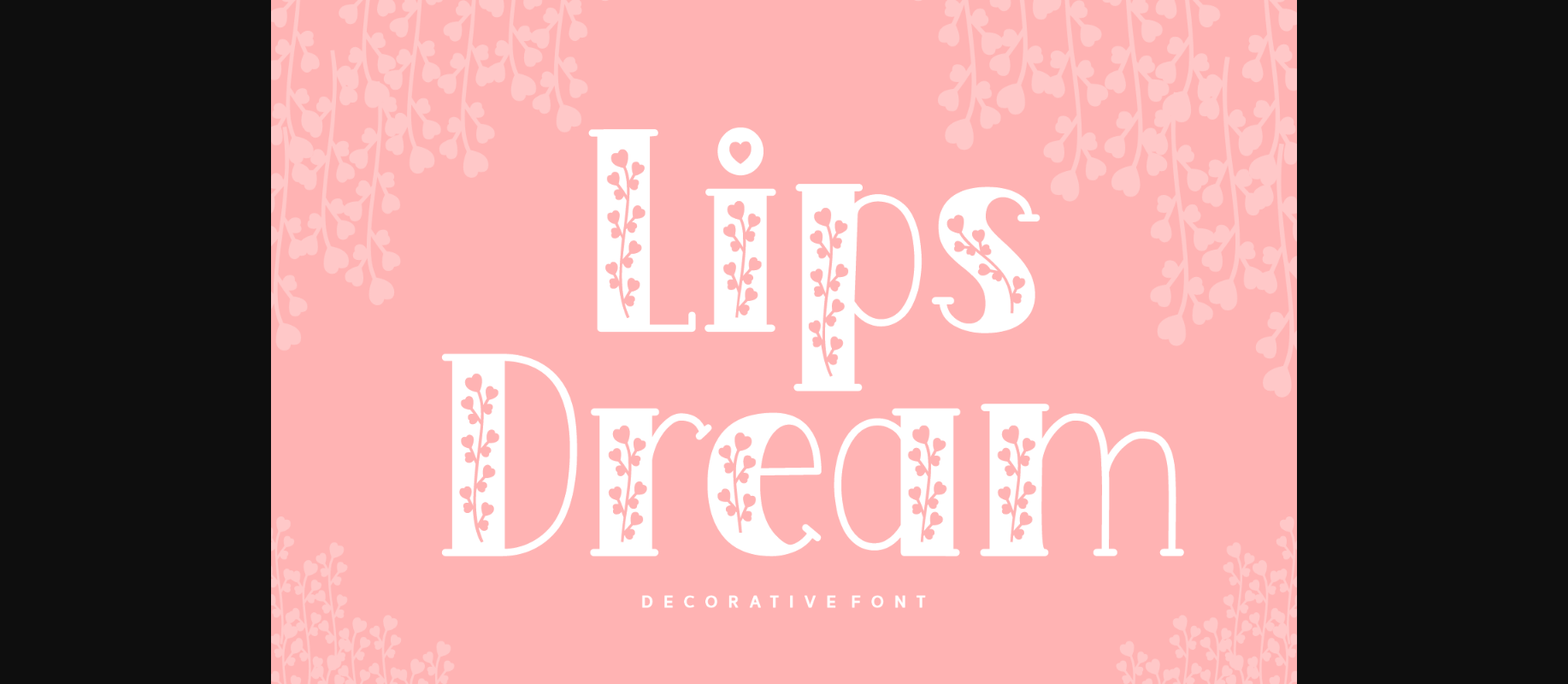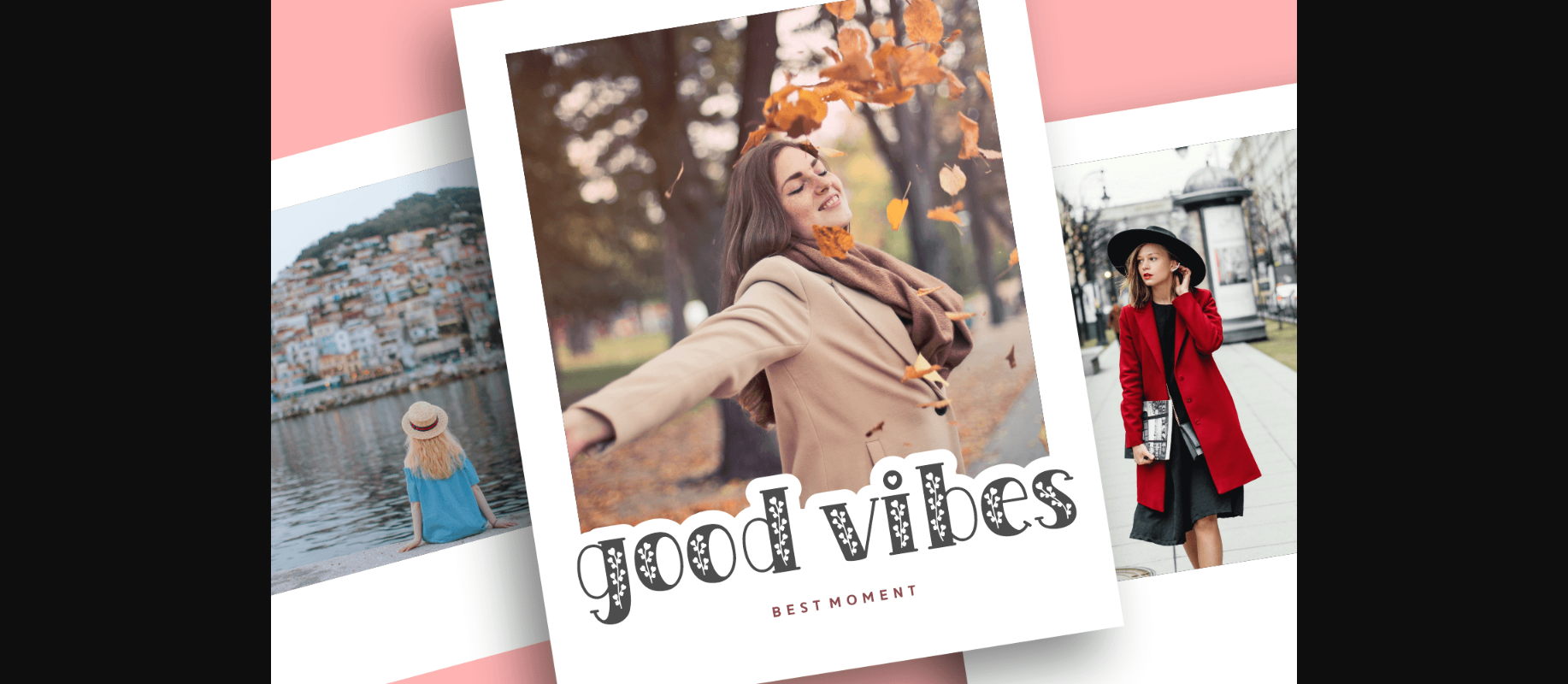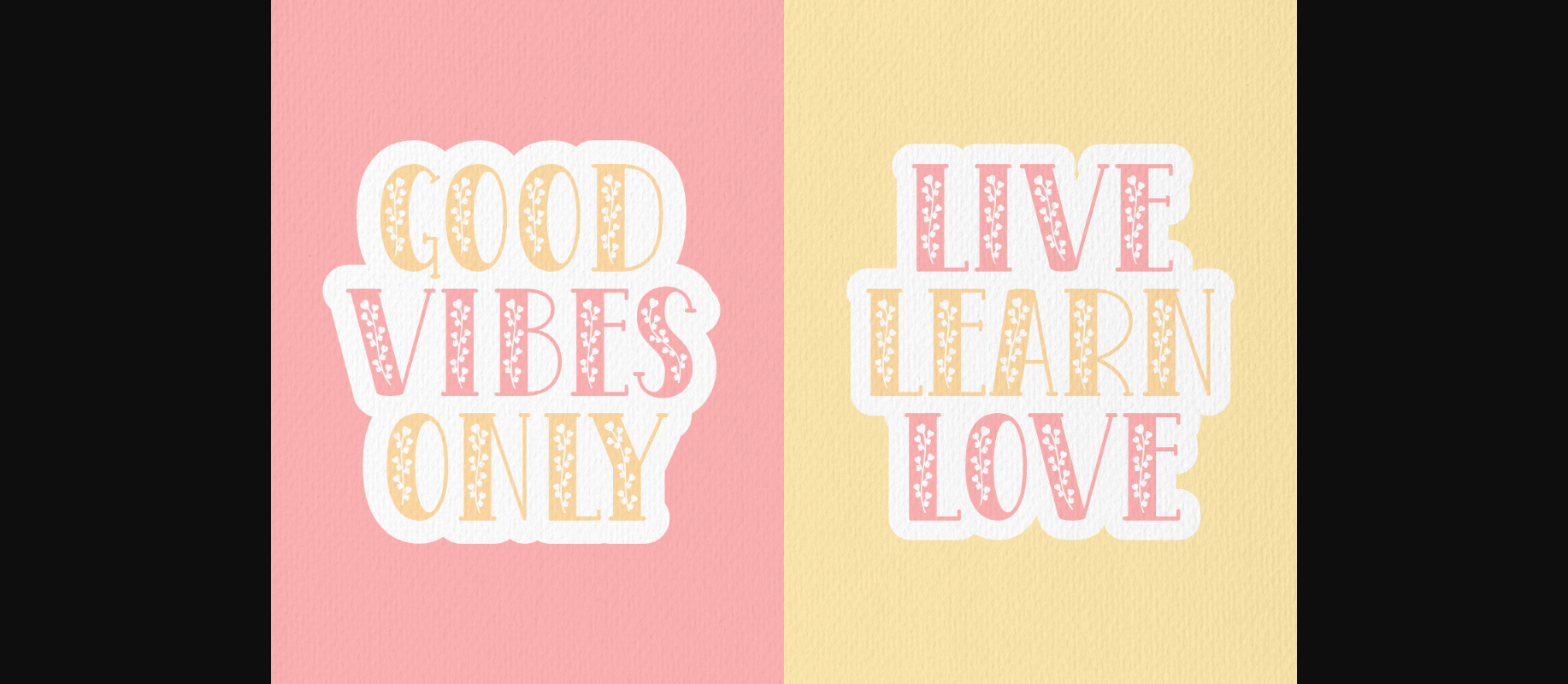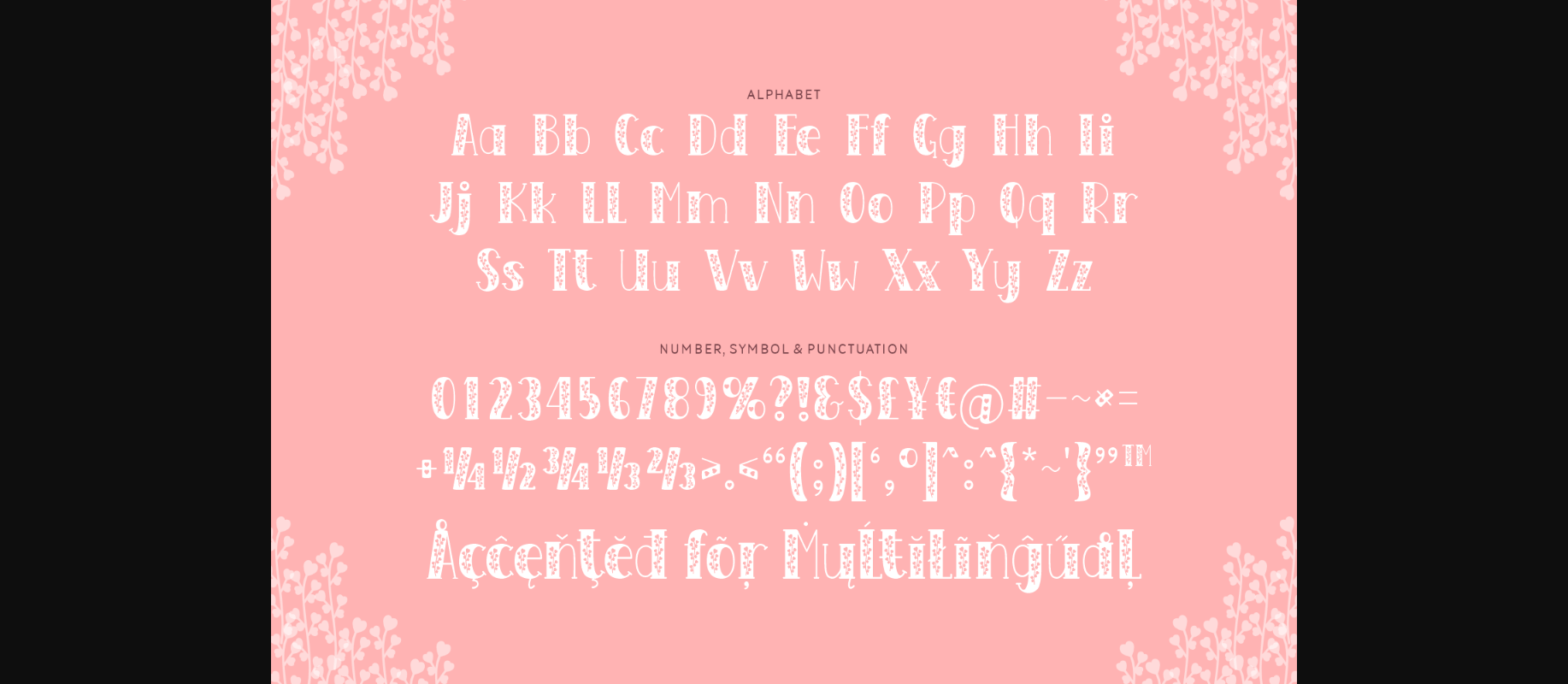
Lips Dream Font
About Lips Dream Font
Lips Dream is a bold but elegant and beautiful decorative font. Whatever the theme, this font will be a valuable addition to your font collection because it has the ability to improve any design with its flower-themed characters. Try it on invitations, cards, quotes, branding, and many more!